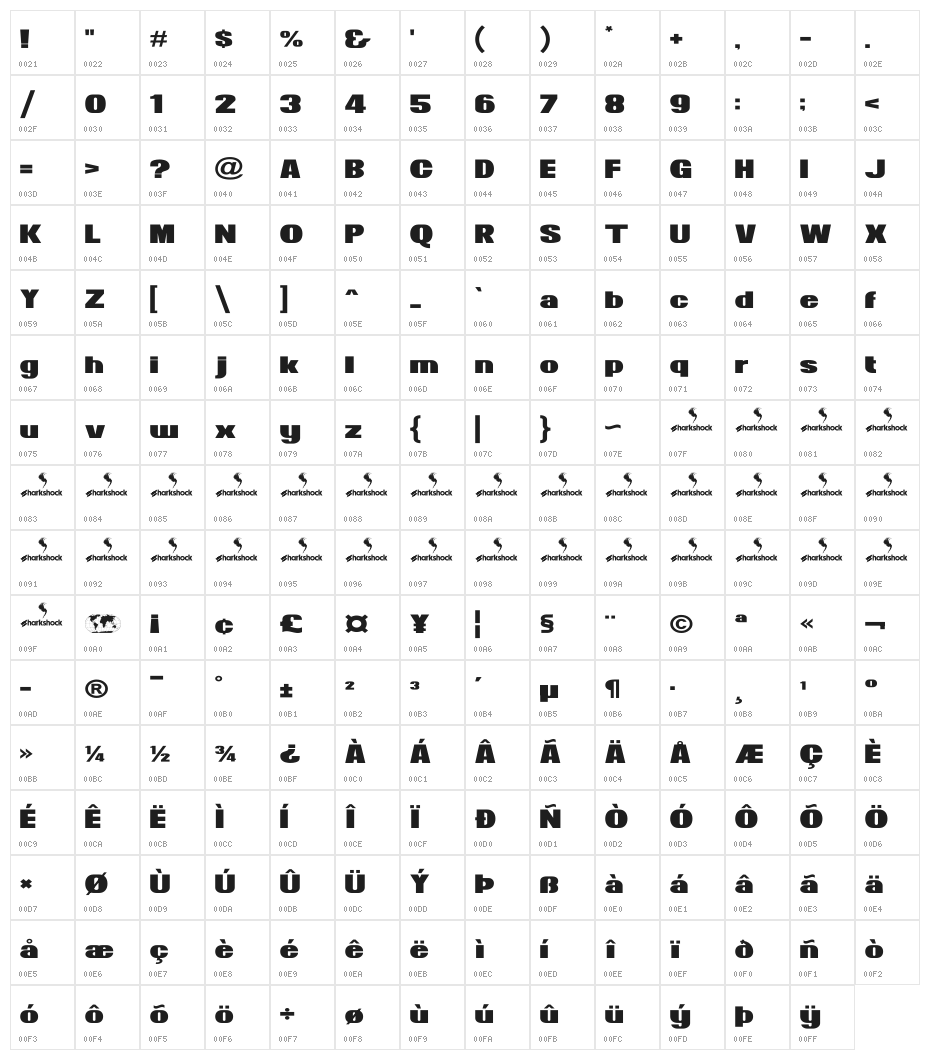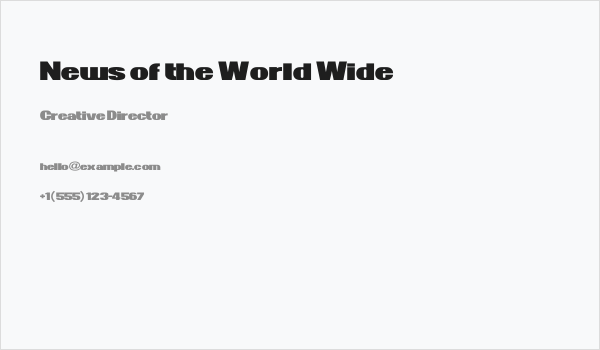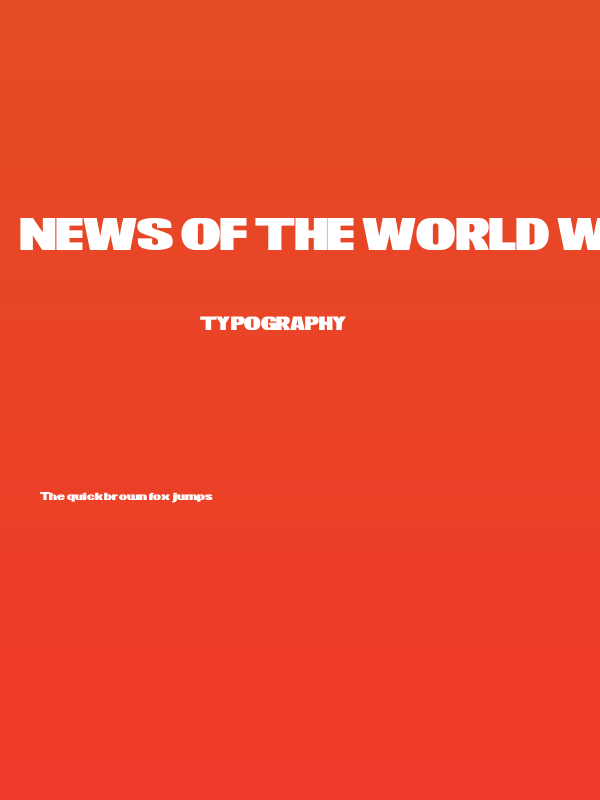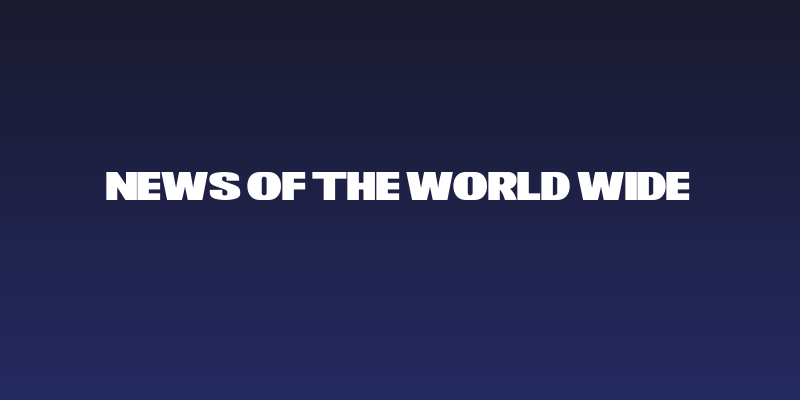
News of the World Wide Font
News of the World Wide Description
This bold and impactful font features thick, uniform strokes that convey strength and authority. The uppercase letters are particularly striking, with a solid, block-like appearance that demands attention. The lowercase letters maintain a consistent weight, ensuring readability while retaining the bold aesthetic. Numbers and special characters are equally robust, making this font versatile for various applications. Its design is straightforward yet powerful, ideal for making a statement.
| Proposed Projects | Ideal for headlines, posters, branding, and any project requiring a strong, authoritative typeface. |